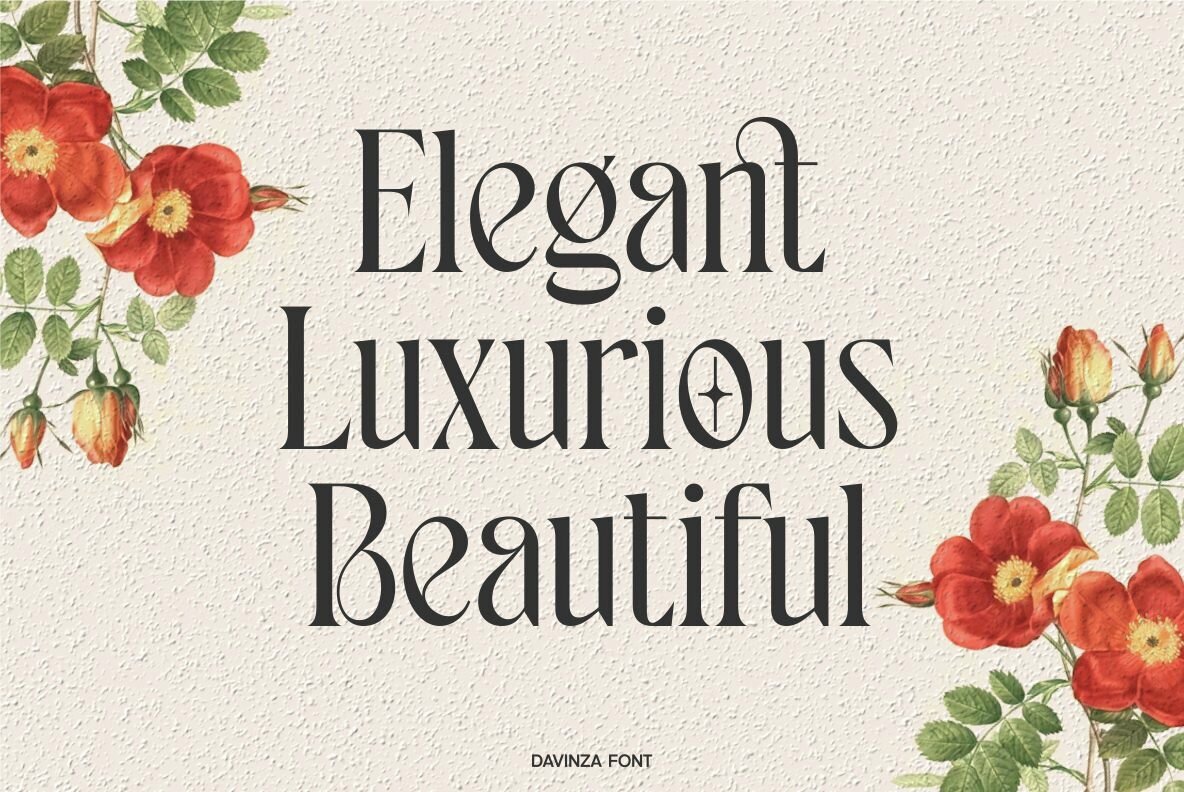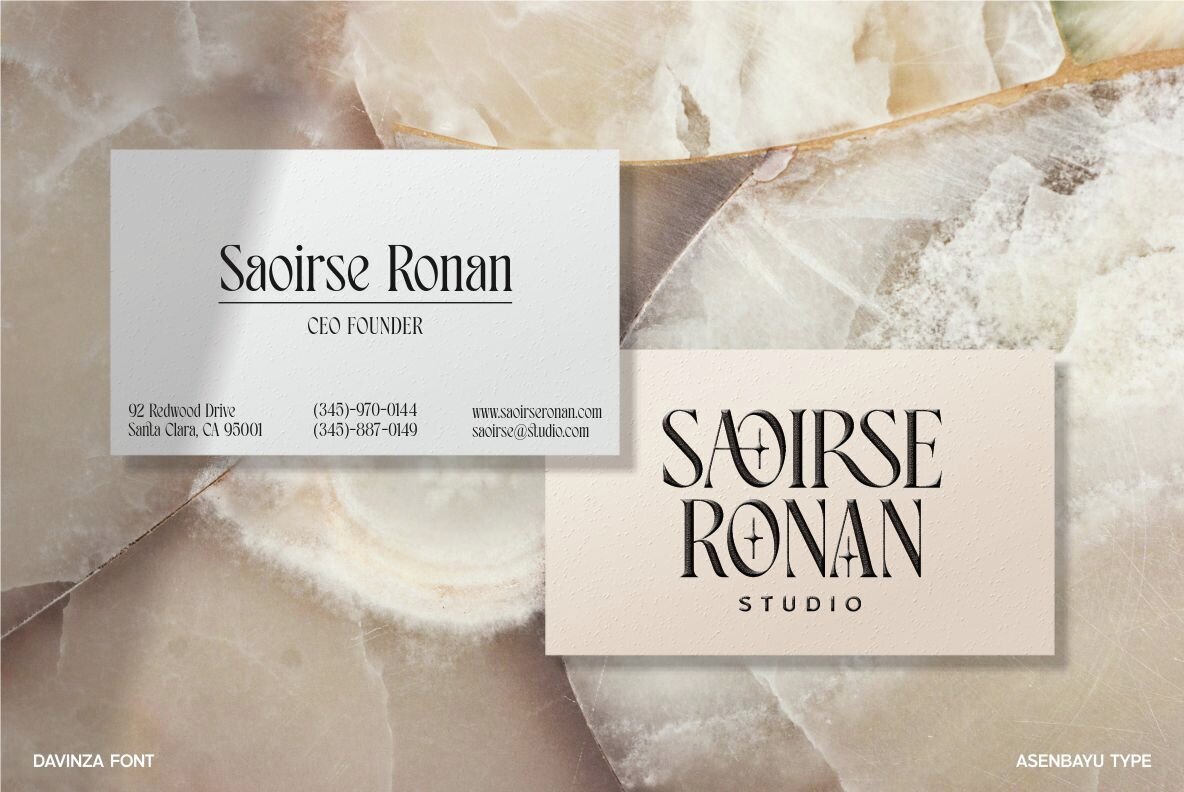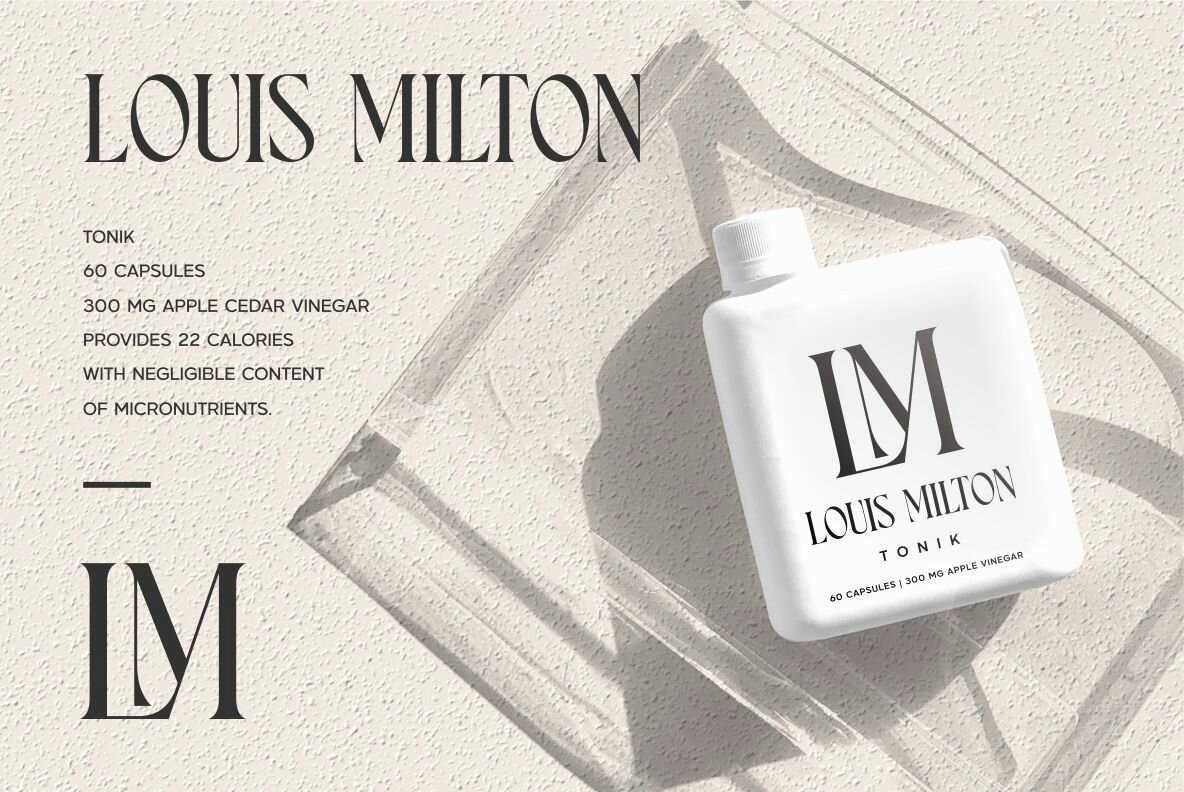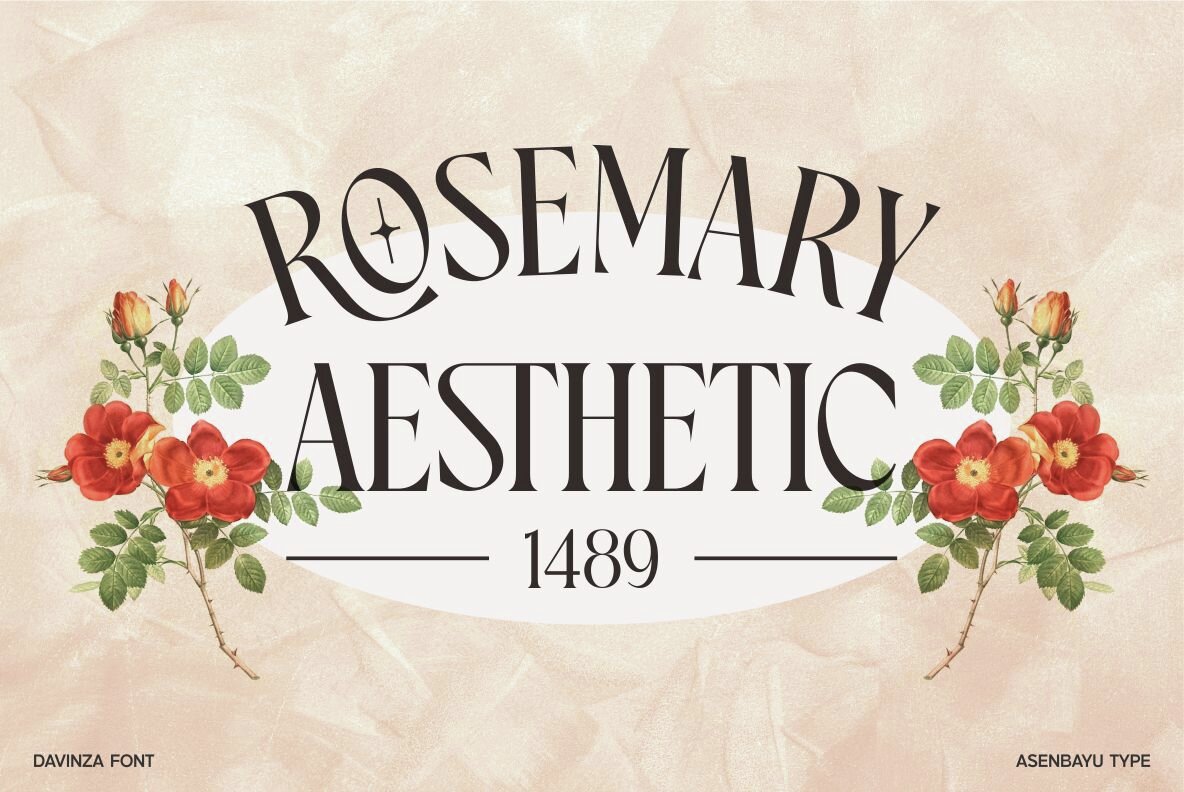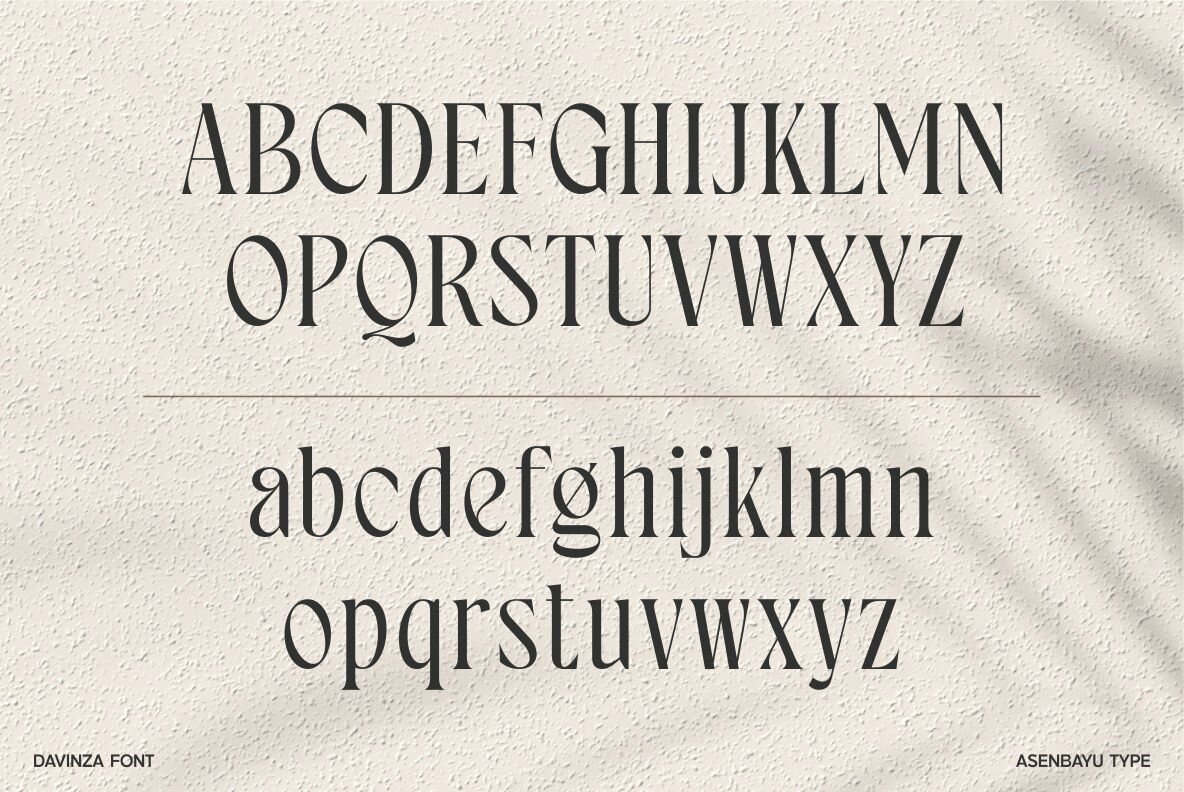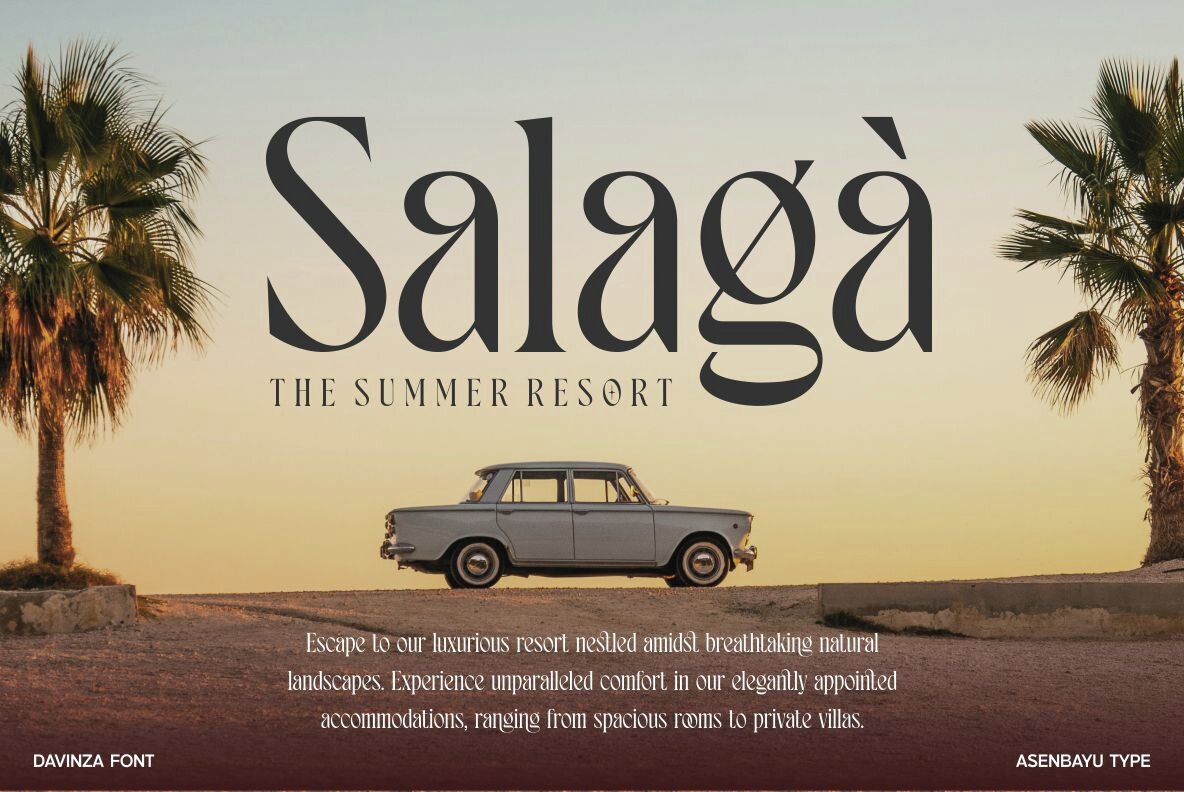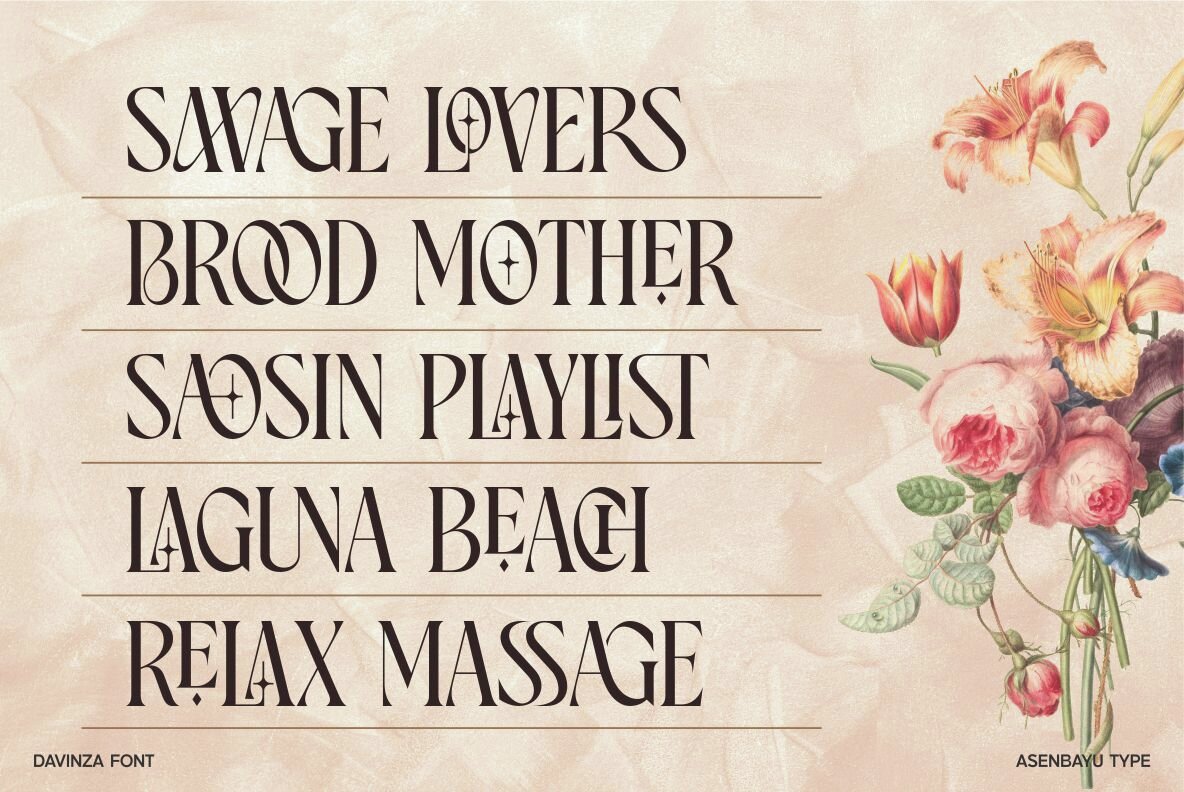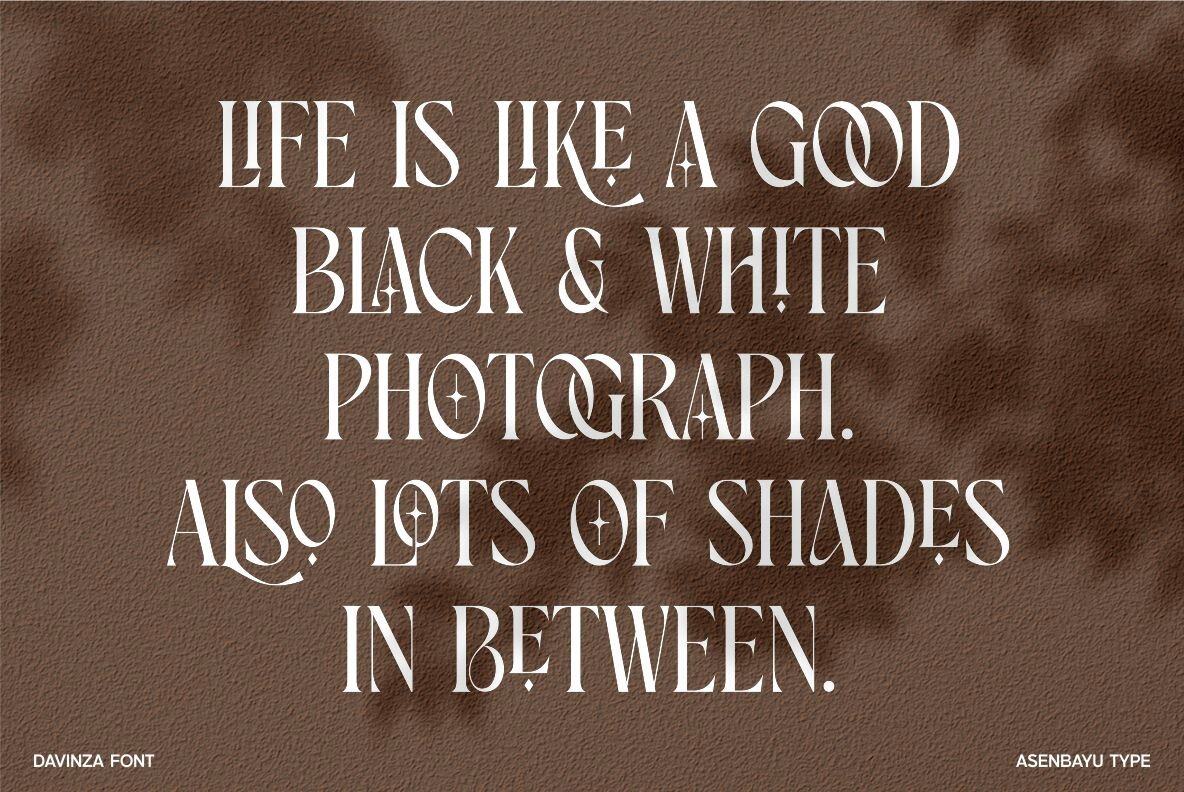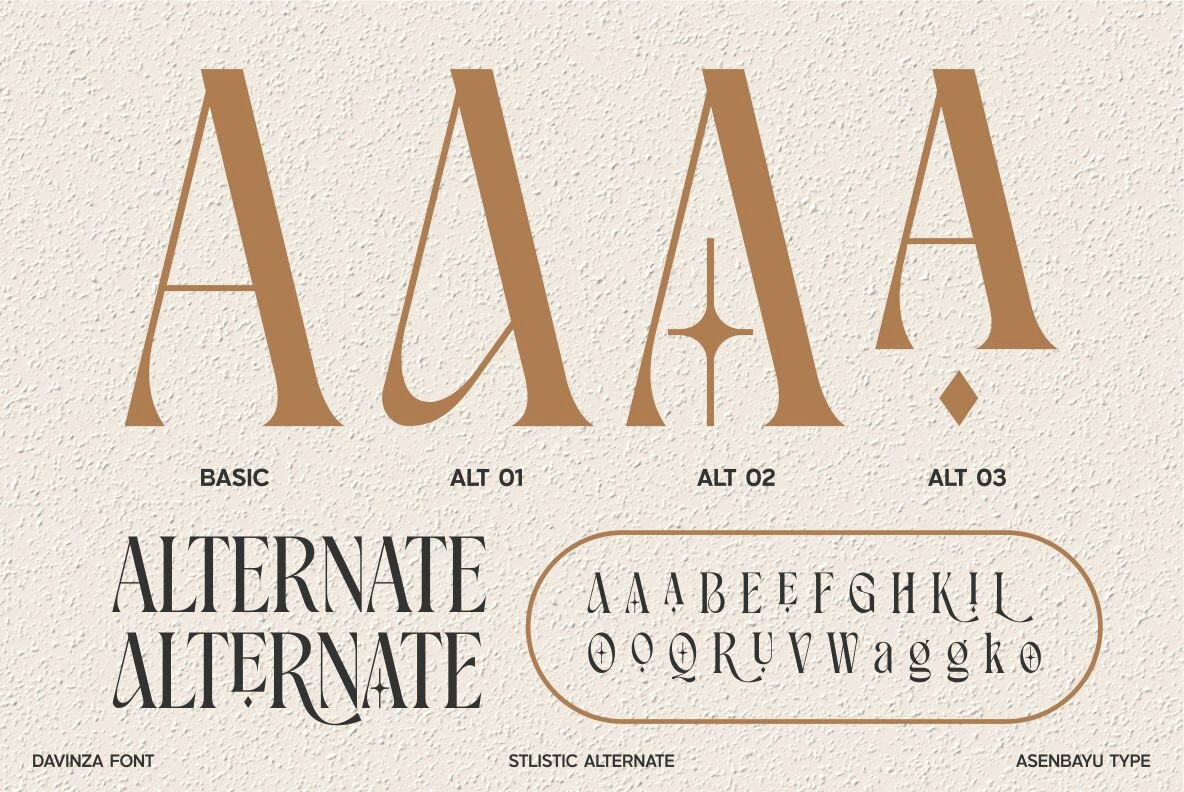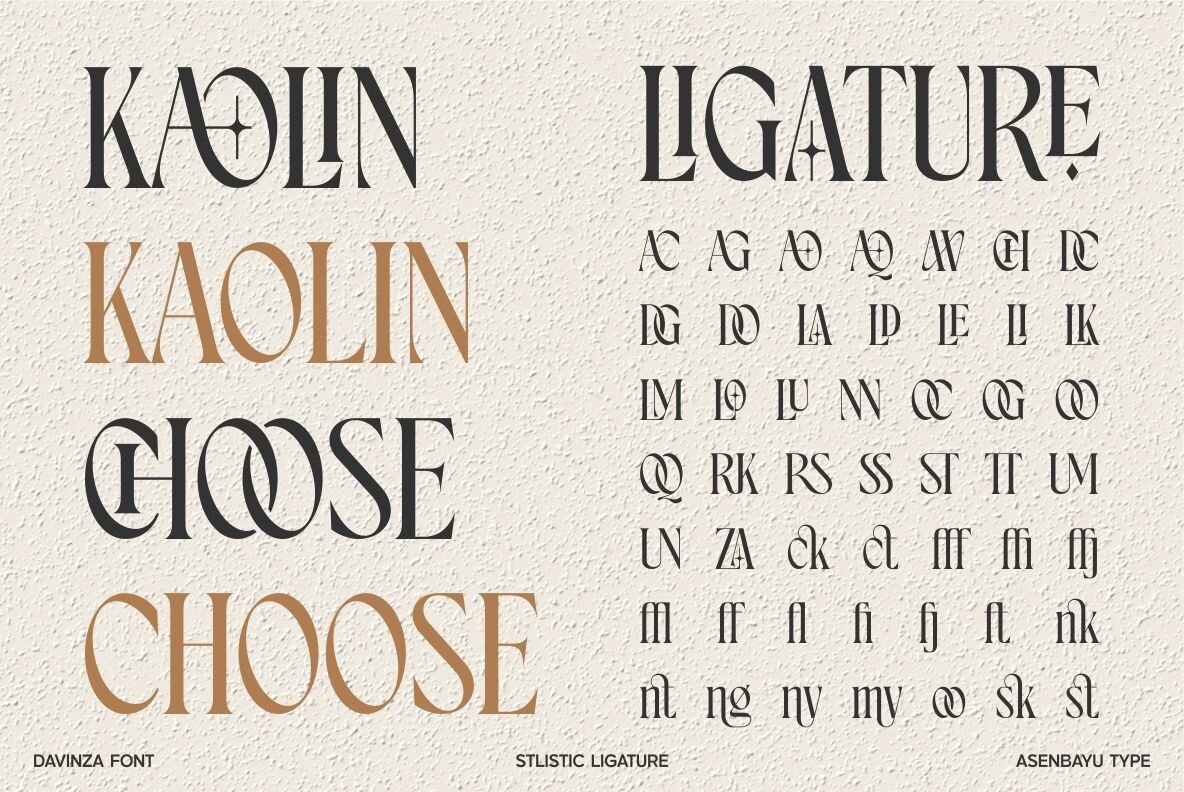
Davinza Font
Davinza Regular
Davinza is an elegant serif typeface characterized by its slim and tall letter proportions, offering a high-end and minimalist impression. Ideal for both modern and vintage designs, Davinza is perfect for creating striking logos, eye-catching posters, unique social media visuals, fashion-related content, and sophisticated websites. It includes stylistic alternates and ligatures to help you achieve your desired design outcomes.Davinza: Elegant Serif Typeface for Modern and Vintage Designs